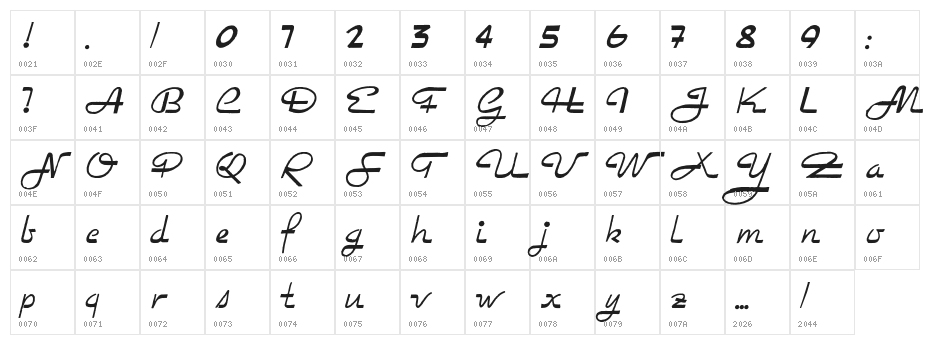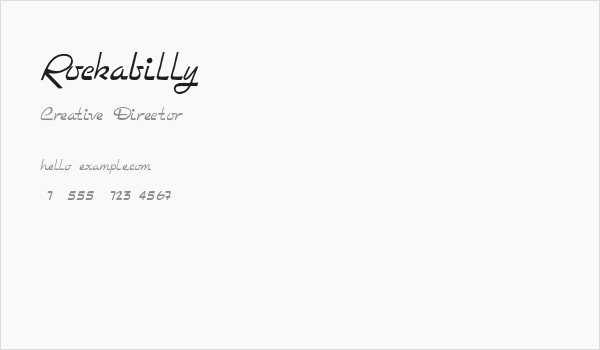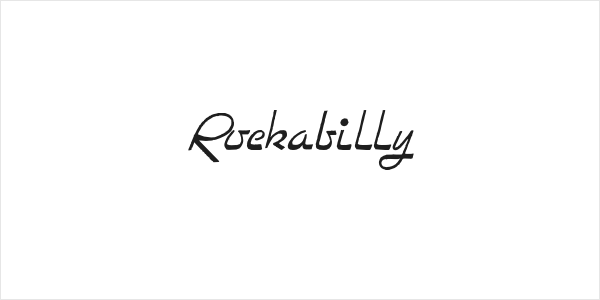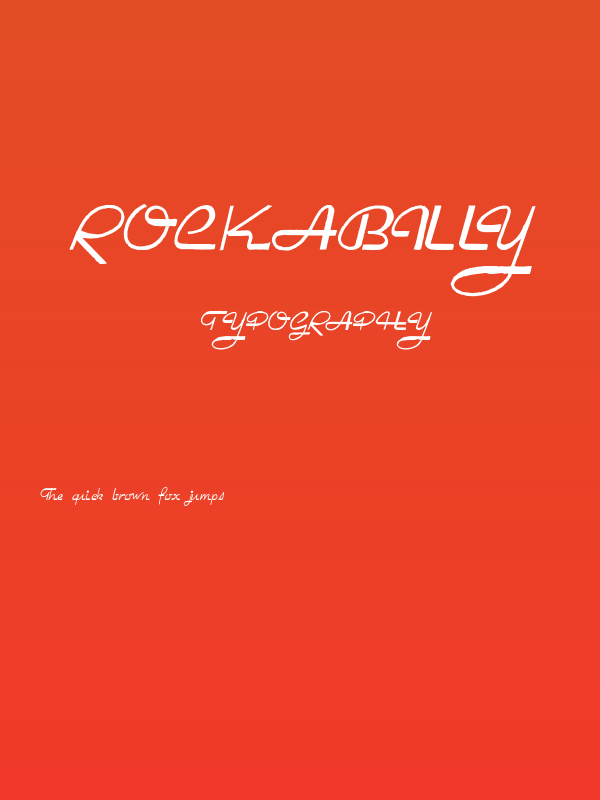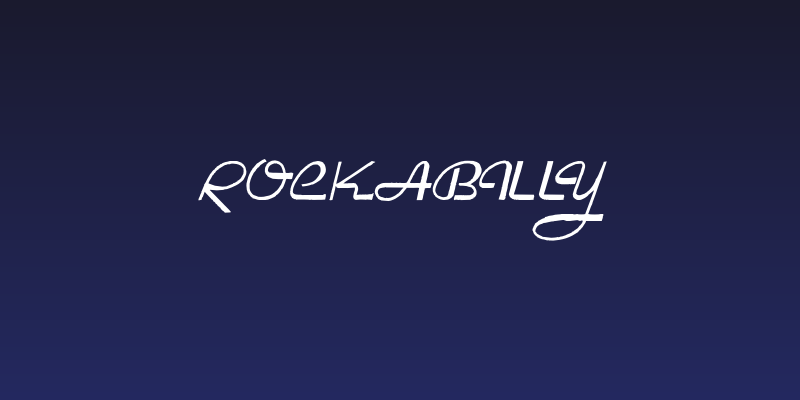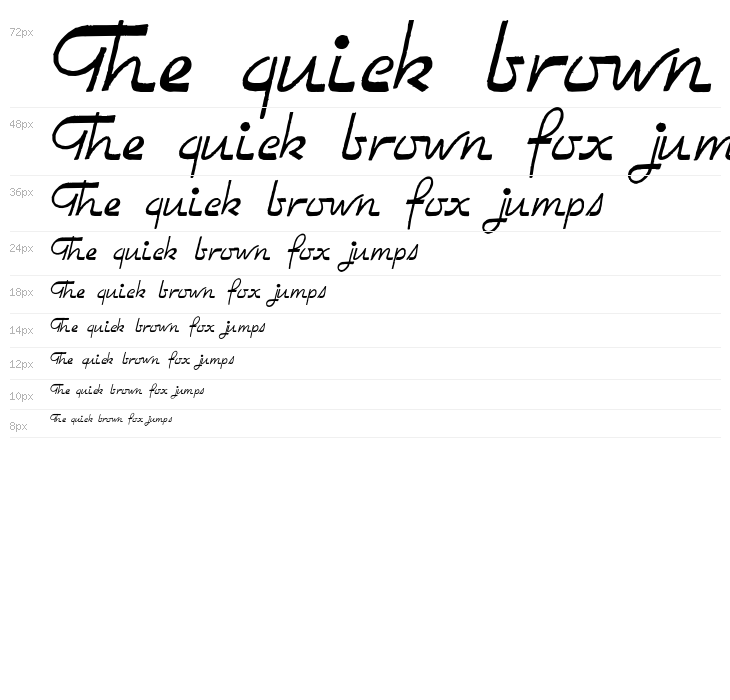
Rockabilly Font
Rockabilly Description
This font features a lively and dynamic script style, characterized by its flowing, cursive letterforms that convey a sense of movement and energy. The uppercase letters are elegantly connected, while the lowercase letters maintain a consistent rhythm, enhancing readability. The numerals are bold and slightly slanted, complementing the overall aesthetic. Special characters are designed with flair, adding to the font's playful and retro vibe. The font's unique style makes it ideal for projects that require a touch of nostalgia and personality.
| Proposed Projects | Ideal for vintage-themed posters, retro branding, music album covers, and creative invitations. |